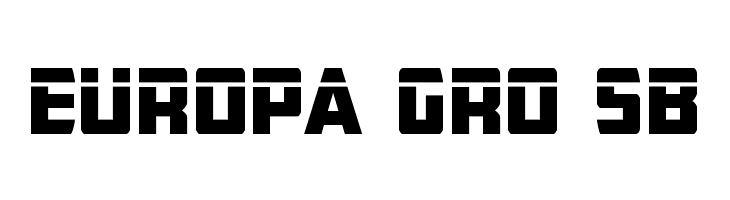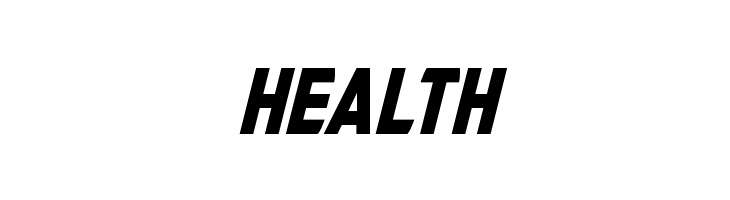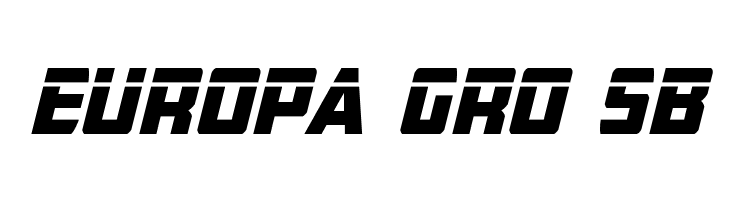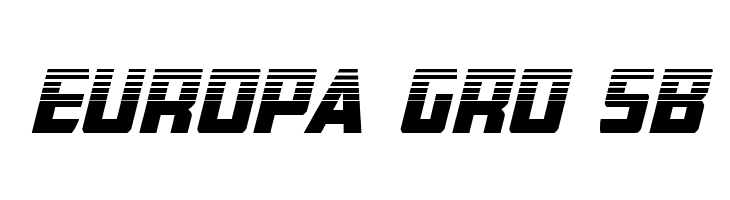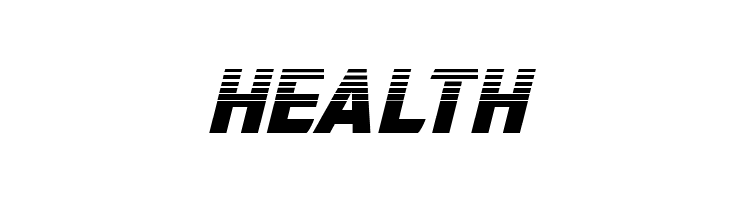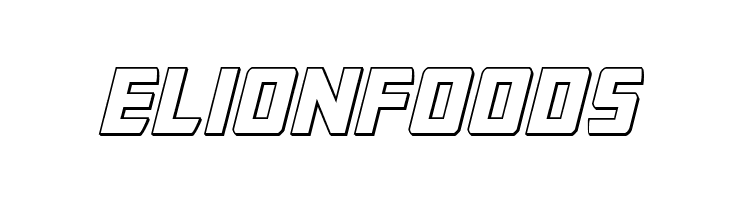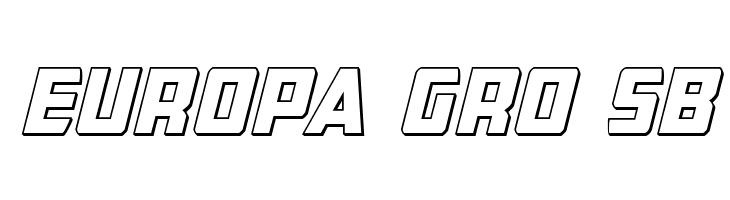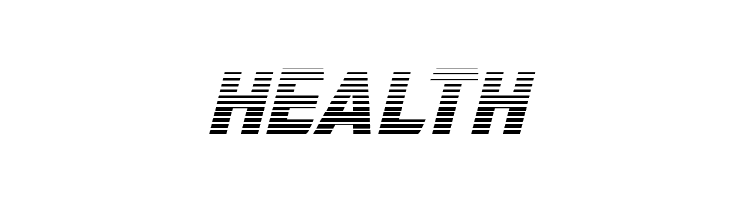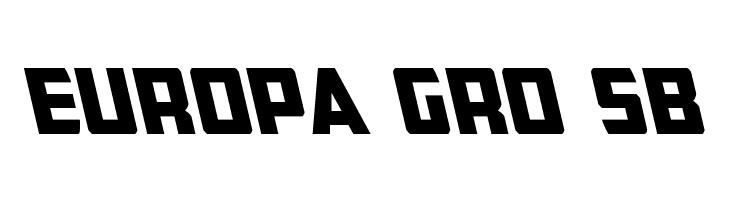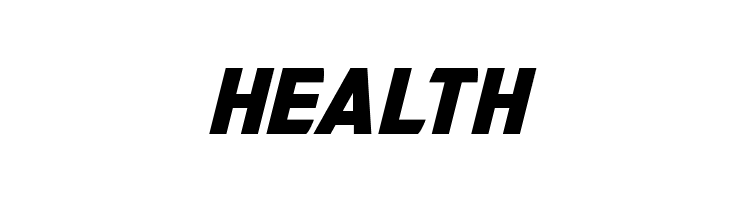
A modern, italic font with a gradient effect and dynamic horizontal lines.
A bold, geometric font with a halftone effect, perfect for modern, industrial designs.
A bold, italicized font with a halftone effect, offering a dynamic and modern look.
A bold, geometric italic font with a modern and dynamic style.
A bold, angular font with a dynamic, slanted design.
A bold, outlined font with geometric, block-like characters.
A bold, outlined, italic font with a modern and dynamic style.
A bold, outlined font with a strong, three-dimensional effect.